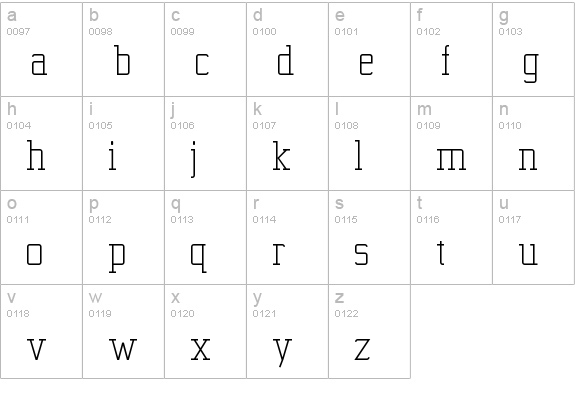
Kwersity Font Details
Introducing Kwersity font, a modern and versatile typeface perfect for a wide range of design projects. With its sleek lines and contemporary style, Kwersity is sure to make your text stand out and leave a lasting impression. This font is ideal for branding, logos, headlines, posters, and more. One of the best features of Kwersity font is that it is completely free to download. You can easily access this font at FontsMarket.com and start using it in your projects right away. Don't miss out on the opportunity to enhance your designs with this elegant and sophisticated typeface. Download Kwersity font today and elevate your creative work to the next level.